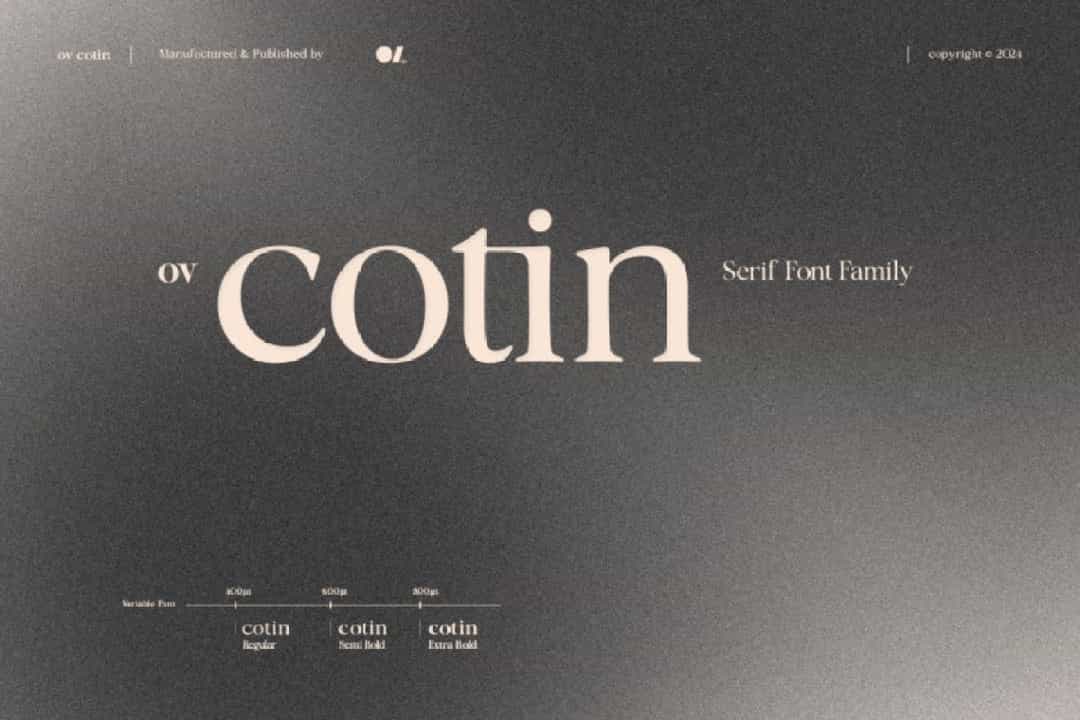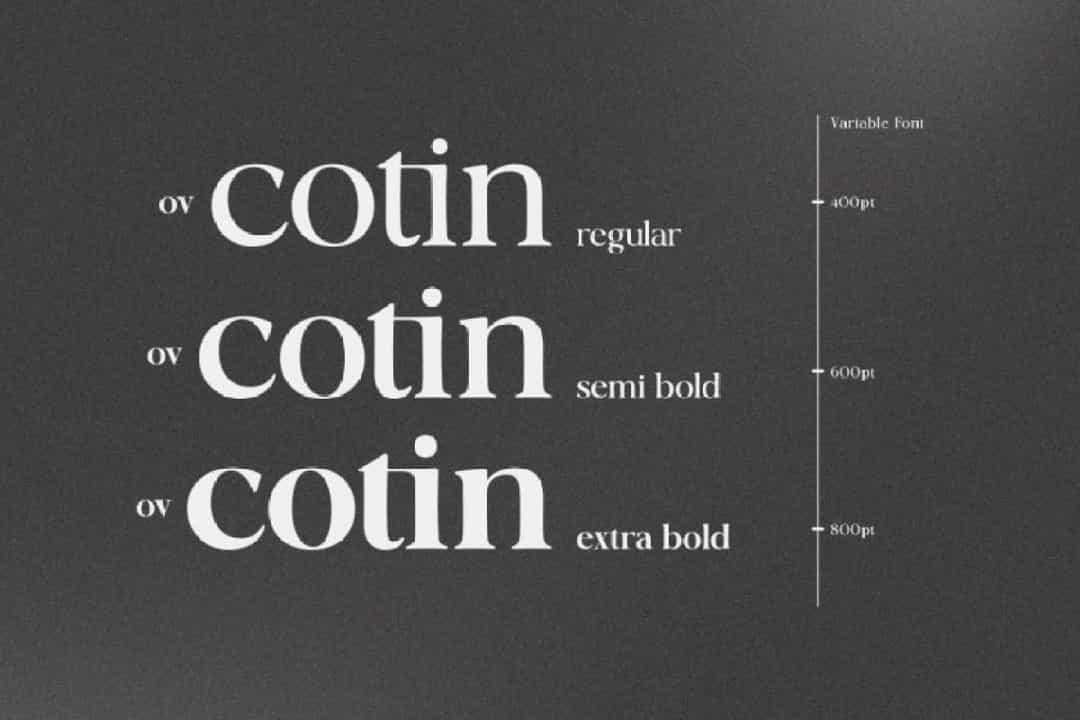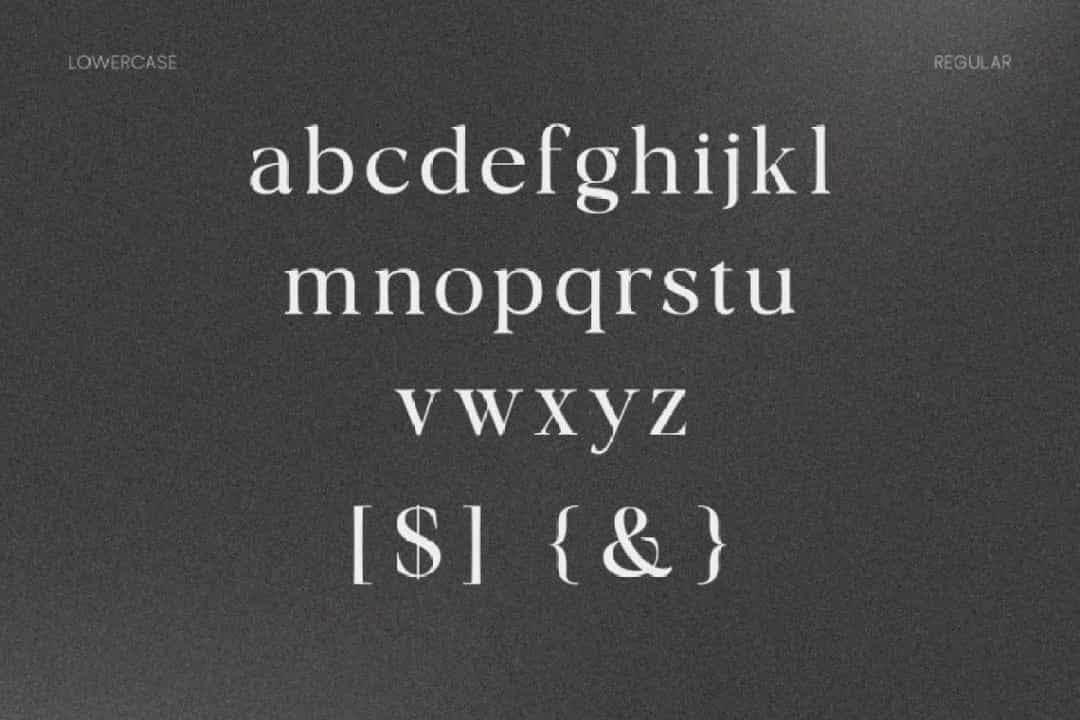
Ov Cotin Font is an elegant serif font with modern elements. Comprised of Regular, Semi Bold, and Extra Bold font families that perfectly combine modernity and nostalgia. Each font in this collection has been thoughtfully created to evoke an instantly recognisable aesthetic while taking account of current fashions in design.